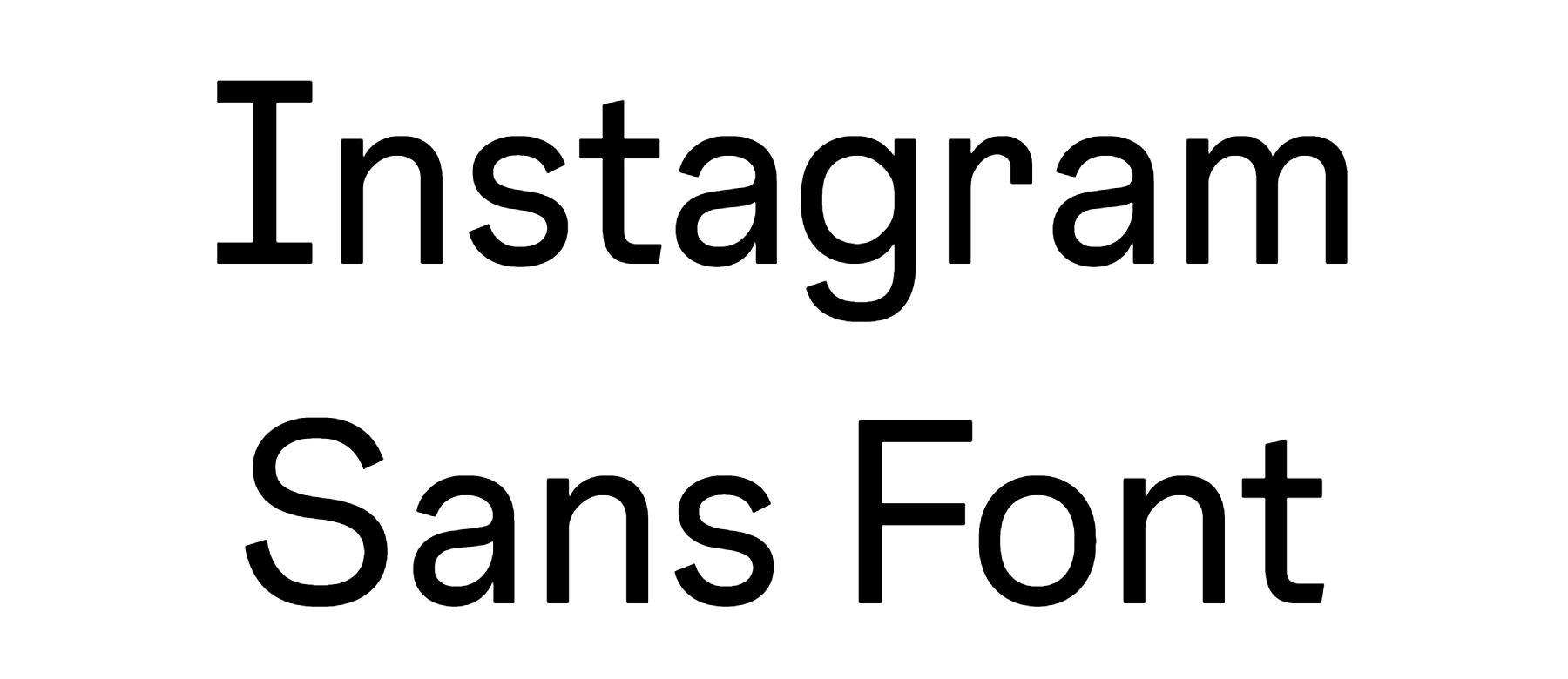
Instagram Sans Font
Instagram Sans
Instagram Sans is a sans serif font designed by Colophon Foundry. Its clean letters skip the little "feet" (serifs) of traditional type, so it looks modern and reads well on screens. The free download includes four styles, and you can try every one of them with your own text in the preview above.
What You Can Type With Instagram Sans
With complete upper and lowercase letters and all ten digits, Instagram Sans is ready for real wording, not just a single headline. Common punctuation such as &, !, ? and @ is included as well. It also has the accented letters you need for Spanish, French, German, Portuguese and Italian.
Where Instagram Sans Works Best
Instagram Sans is a natural fit for websites, app screens and clean logos. It works for headings and body text alike. If the download has several weights, use a heavier one for titles and a lighter one for paragraphs. Because the family has more than one style, you can mix them in a single design for headings, subheadings and highlights.
Does Instagram Sans support accented letters?
Yes. Instagram Sans includes the accented letters needed for Spanish, French, German, Portuguese and Italian, so it works for more than just English.